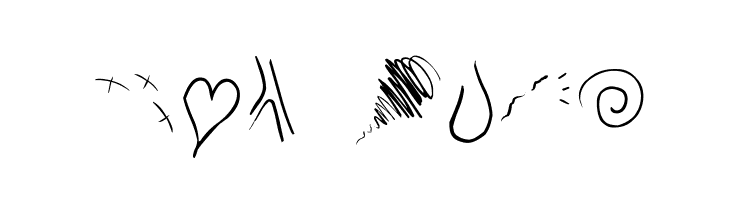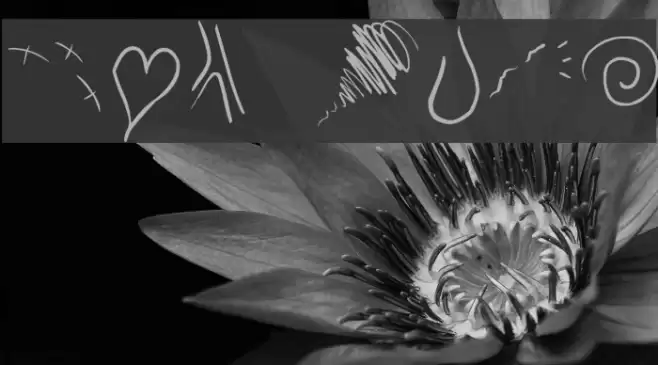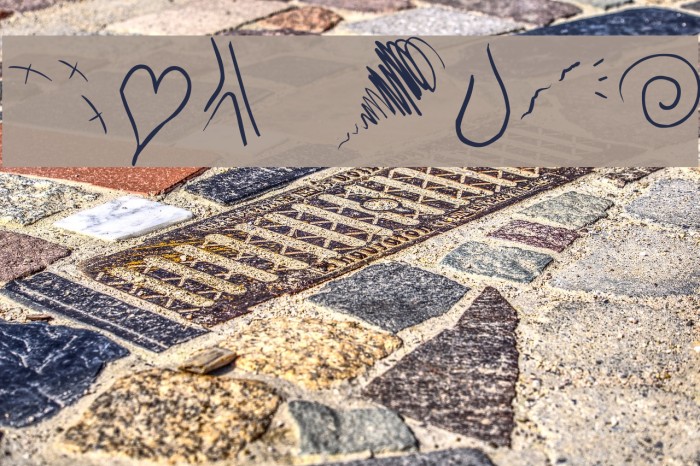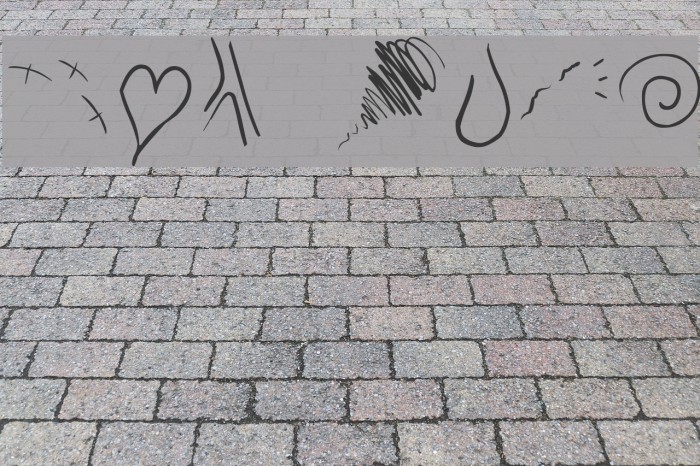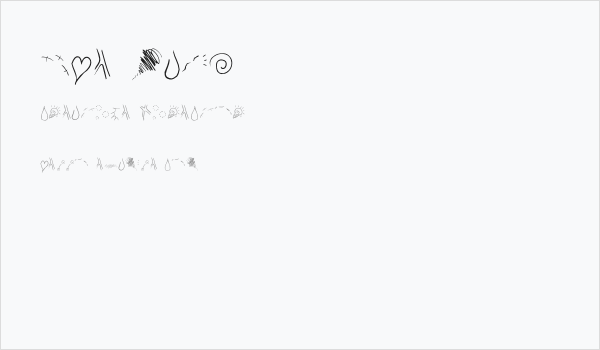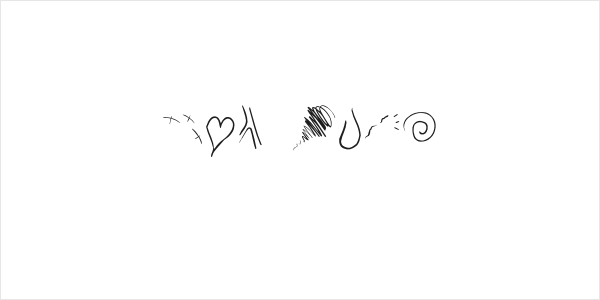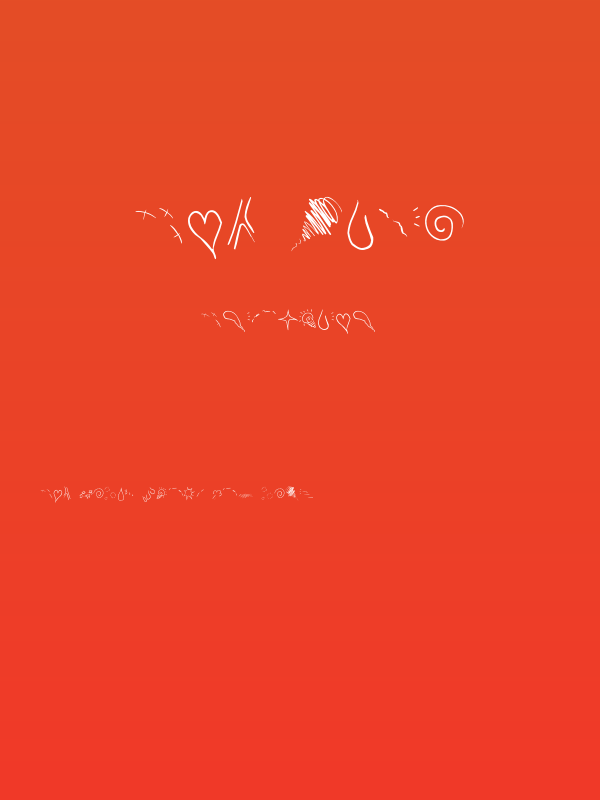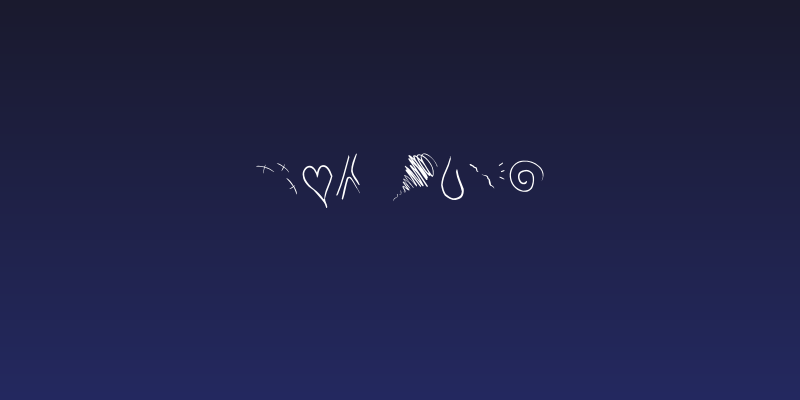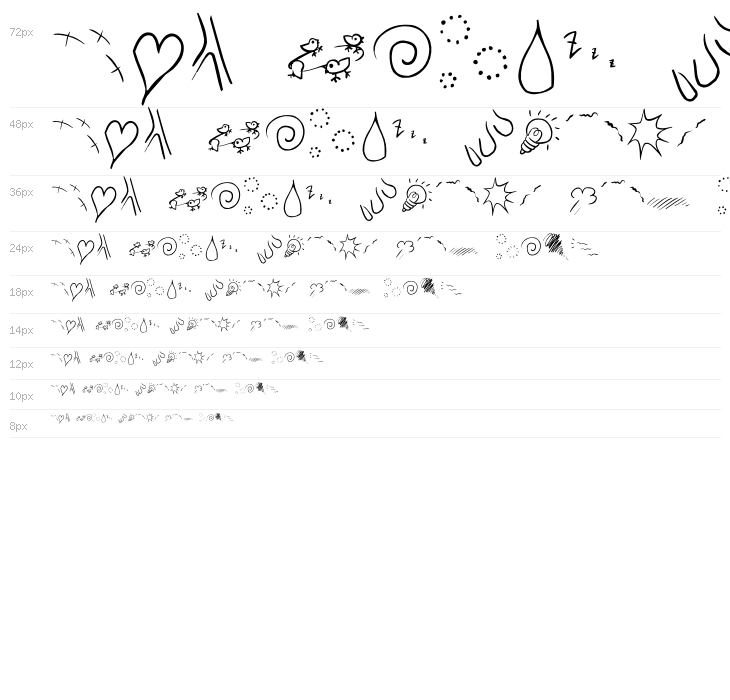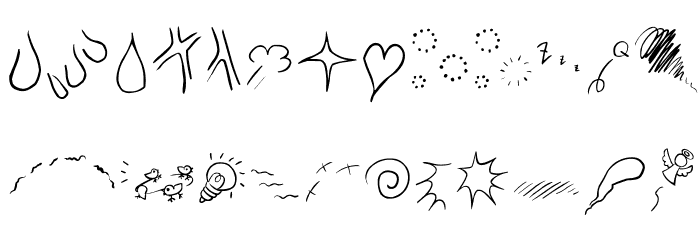
The-ManPu Font
The-ManPu Description
A playful, hand-drawn dingbat set featuring whimsical symbols such as hearts, stars, light bulbs, birds, and various expressive marks and doodles. The lines are organic and sketch-like, giving a casual and creative feel.
Overall StylePlayful, Whimsical, Hand-drawn
Use CaseDecorative accents, visual storytelling, informal design projects.
Proposed ProjectsChildren's books, comics, creative presentations, greeting cards, playful branding, educational materials.